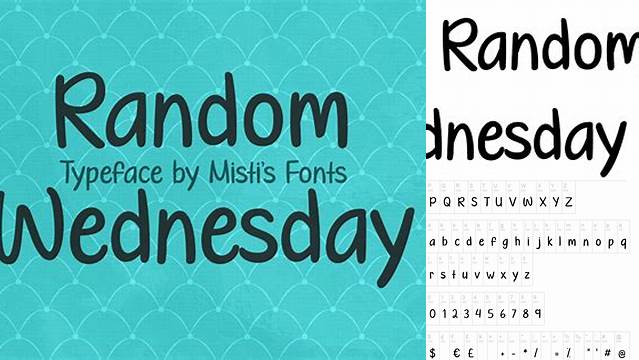
Hey guys! Are you on the hunt for that perfect font to spice up your projects? Look no further! This comprehensive guide dives deep into the world of the Random Wednesday font, offering you everything you need to know about this unique typeface and where to find it for free. We'll explore its characteristics, ideal use cases, licensing details, and, most importantly, how to snag those free downloads. So, buckle up and let's get started!
What is the Random Wednesday Font?
The Random Wednesday font is a distinctive typeface known for its playful and somewhat whimsical character. Often categorized as a display font, it’s designed to catch the eye and make a statement. Its unique features might include irregular letterforms, quirky serifs (or lack thereof), and an overall handcrafted feel. This makes it an excellent choice for projects that require a touch of personality and informality. Think about using it for posters, invitations, social media graphics, and even branding materials where you want to convey a sense of fun and creativity. The font's inherent charm can add a unique flavor to your designs, setting them apart from the crowd. Understanding the specific nuances of the Random Wednesday font – such as its weight, style variations (bold, italic, etc.), and glyph coverage – is crucial for making the most of its potential. Before diving into a project, take some time to explore different versions of the font to see which one best aligns with your aesthetic goals. Remember, the key is to leverage its unique characteristics to enhance your message and create visually appealing designs that resonate with your target audience. The Random Wednesday font isn't just a set of characters; it's a tool for storytelling and visual communication, so use it wisely and creatively!
Key Characteristics of Random Wednesday Font
When you're diving into fonts, it's super important to know what makes each one tick, right? The Random Wednesday font is usually all about being playful and eye-catching. Think irregular shapes, maybe some quirky serifs (or no serifs at all!), and just an overall vibe that screams handmade. This font isn't your boring, run-of-the-mill typeface; it's got personality for days! One of the main things that sets Random Wednesday font apart is its versatility in evoking different moods. Depending on the specific design and application, it can feel whimsical, vintage, or even slightly edgy. The weight of the font—whether it's light and airy or bold and impactful—also plays a significant role in shaping its character. Lighter weights often lend themselves to a more delicate and refined aesthetic, while heavier weights command attention and exude confidence. Furthermore, the presence or absence of serifs contributes to the font's overall style. Serif fonts tend to convey a sense of tradition and formality, while sans-serif fonts offer a cleaner, more modern look. In the case of Random Wednesday, you might find variations that experiment with both serif and sans-serif elements, adding to its unique appeal. Beyond the basic characteristics, the Random Wednesday font often includes stylistic alternates and ligatures that can further enhance its visual interest. Stylistic alternates provide different versions of certain characters, allowing you to customize the look and feel of your text. Ligatures, on the other hand, are special characters that combine two or more letters into a single glyph, creating a more seamless and harmonious appearance. These subtle details can elevate your designs and make them stand out from the crowd. Understanding these key characteristics will help you decide if Random Wednesday is the right fit for your project and how to best utilize it.
Ideal Use Cases for Random Wednesday Font
Alright, so you're digging the Random Wednesday font, but where can you actually use it? This font shines in projects where you want to add a personal, creative touch. Think about using it for eye-catching posters, especially if you're promoting something fun or quirky. It's also amazing for invitations, giving your event a unique and memorable feel. If you're working on social media graphics, Random Wednesday font can help your posts stand out from the endless scroll. And don't forget branding! If your brand is all about being playful and approachable, this font could be a perfect match. Let’s dive a bit deeper, shall we? Consider the specific message you want to convey. Random Wednesday works wonders for projects targeting a younger audience or those with a lighthearted theme. For instance, imagine using it for a children's book cover or a summer camp flyer. Its whimsical nature can instantly capture attention and create a sense of excitement. On the other hand, if you're aiming for a more sophisticated or professional look, you might want to reserve Random Wednesday for smaller accents or headings. Pairing it with a more traditional body font can strike a balance between personality and readability. Experiment with different combinations to find what works best for your specific project. Beyond the visual appeal, think about the practical aspects of using Random Wednesday font. Is it legible at different sizes? Does it work well in both print and digital formats? Consider the overall design and make sure the font complements the other elements on the page. Don't be afraid to play around with colors, spacing, and other design elements to enhance the font's impact. Remember, the goal is to create a cohesive and visually appealing design that effectively communicates your message. Random Wednesday font is a fantastic tool to have in your design arsenal, but it's important to use it thoughtfully and strategically to achieve the best results.